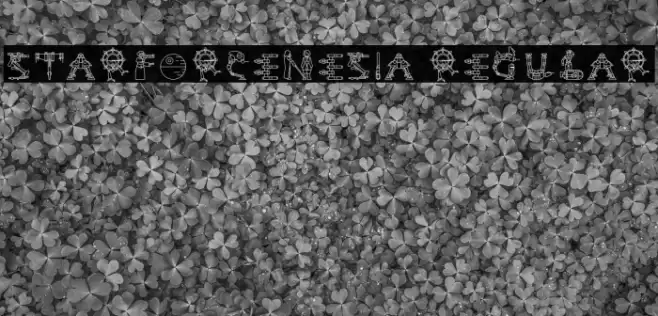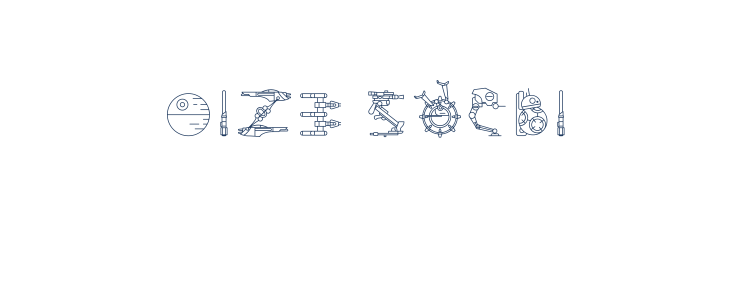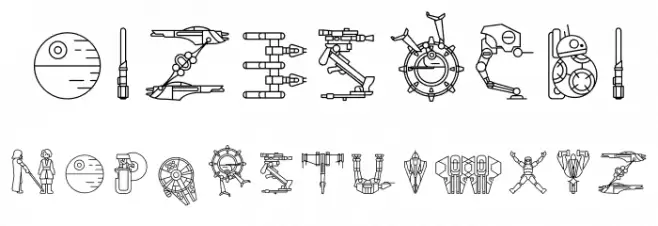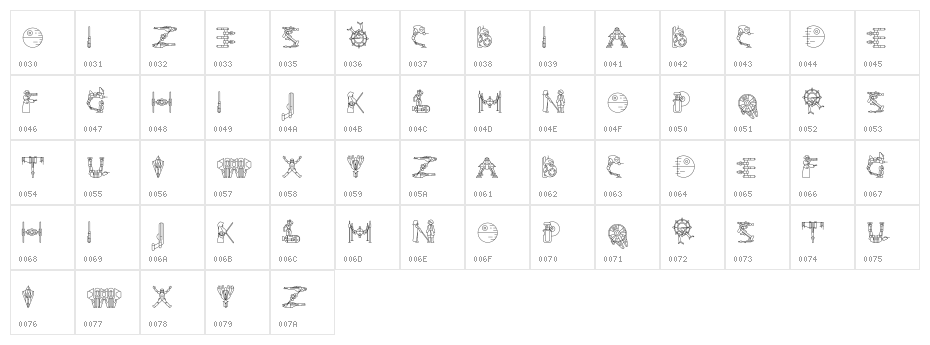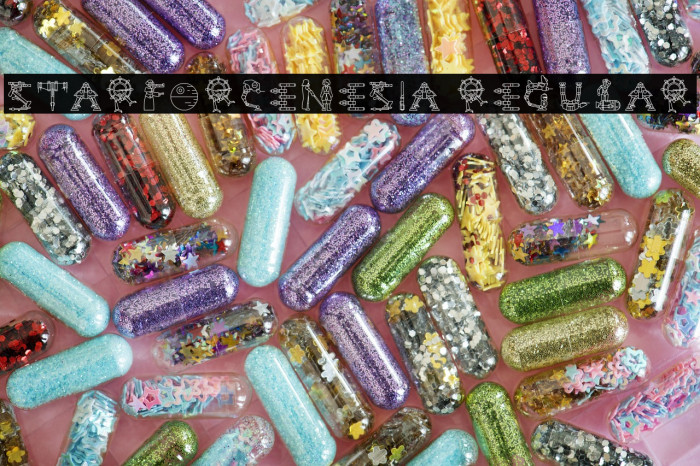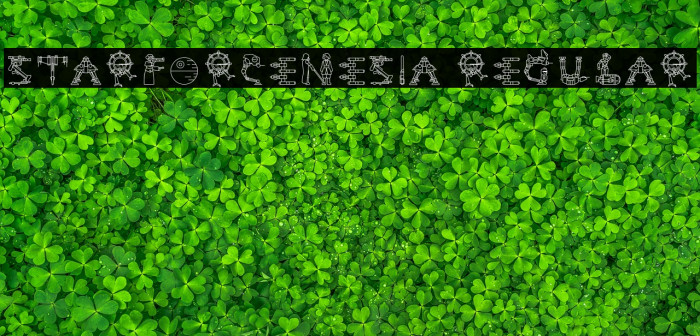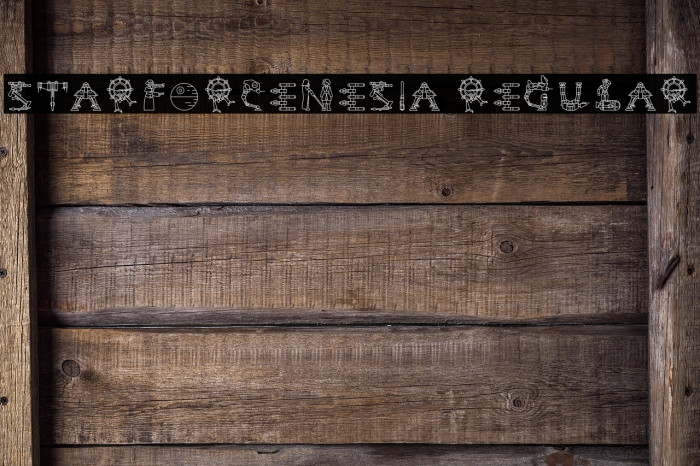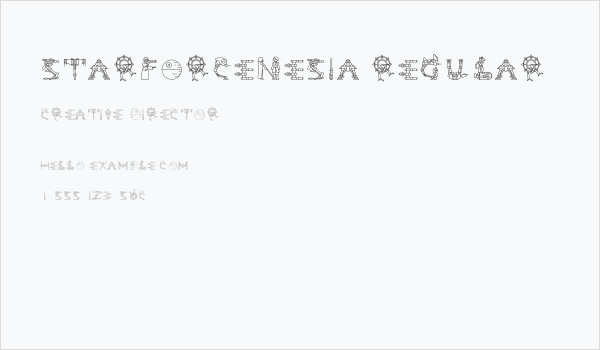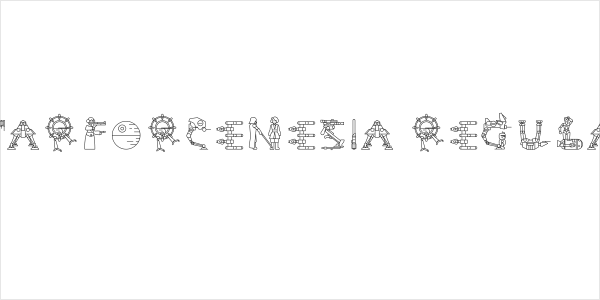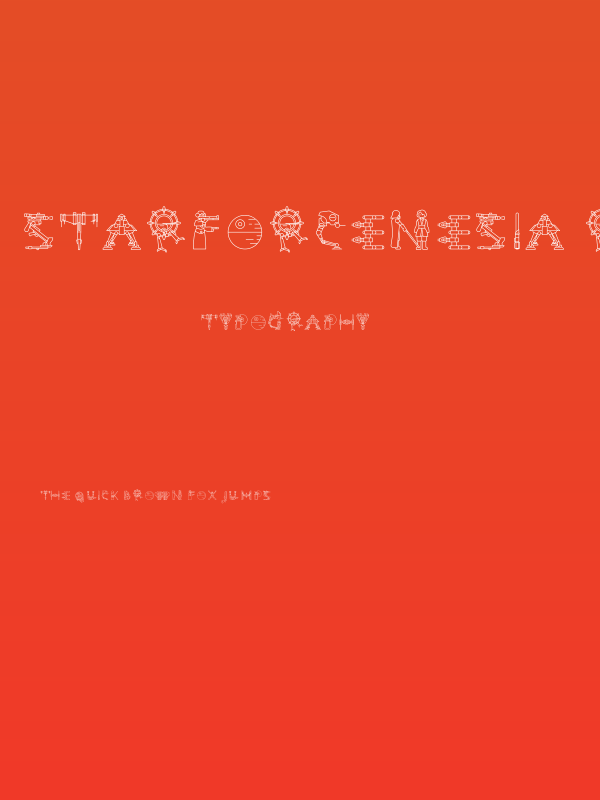
StarForceNesia Regular Font
StarForceNesia Regular Description
This font is a decorative and thematic typeface inspired by iconic sci-fi elements. Each character is uniquely designed to resemble various futuristic and space-themed objects, making it highly distinctive and visually engaging. The uppercase and lowercase letters, as well as numbers and special characters, are crafted with intricate details that evoke a sense of adventure and technology. The font's playful and imaginative style makes it ideal for projects that aim to capture the essence of science fiction and fantasy worlds.
A decorative sci-fi themed font with intricate, futuristic designs from Decorative fonts.
- Proposed Projects: Ideal for sci-fi themed posters, movie titles, video game graphics, and themed event invitations.